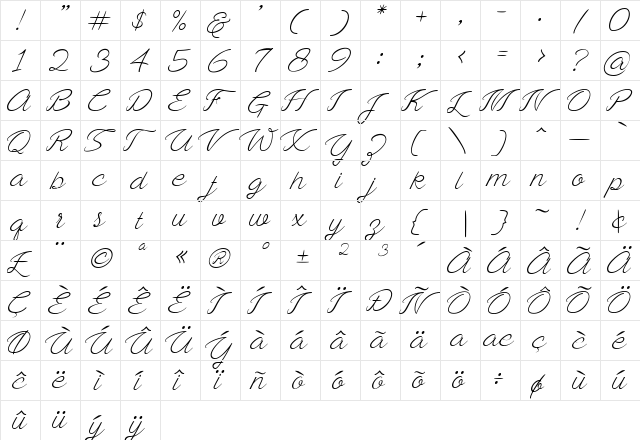
Ayla Script Regular
| Foundry | Ianmikraz |
| Designer | Ianmikraz |
Design Context for Ayla Script Typeface
Ayla Script flows with the natural rhythm of handwritten lettering, making it ideal for designs that call for warmth and personal expression.
Font Pairing: Combine Ayla Script with a simple geometric sans for maximum contrast — the tension between flowing curves and clean structure is a classic typographic pairing.
Pro Tip: Pair Ayla Script with a clean sans-serif for supporting text. The contrast between fluid script and geometric structure creates an elegant typographic hierarchy.